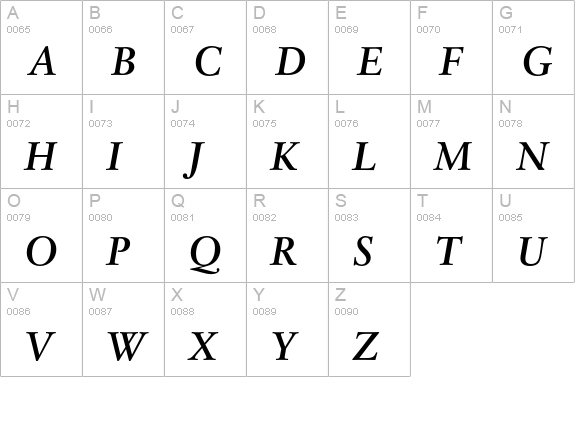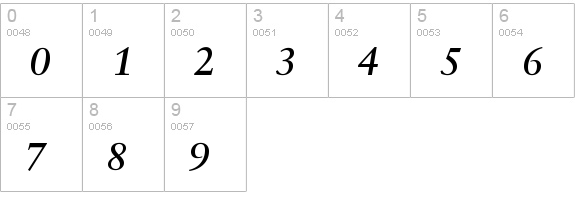
Classical Garamond Bold Italic Font Details
Classical Garamond Bold Italic is a strong, high-contrast, italic variant in the Classical typeface family \xE2\x80\x94 well suited to headlines, attention-grabbing titles, and strong calls-to-action.
Classical Garamond Bold Italic is a timeless and elegant font that exudes sophistication and style. Combining the classic Garamond typeface with a bold italic variation, this font is perfect for adding a touch of luxury to any design project. The strong and graceful letterforms make a bold statement while maintaining a sense of refinement. The Classical Garamond Bold Italic font is versatile and can be used for a variety of applications, from invitations and branding materials to book covers and signage. Its bold and italic characteristics add emphasis and flair to any text, making it stand out with a touch of sophistication. Best of all, the Classical Garamond Bold Italic font is available for free download at FontsMarket.com. This means you can easily access this exquisite font and enhance your designs without any cost. Don't miss out on this opportunity to elevate your projects with the timeless beauty of Classical Garamond Bold Italic font.